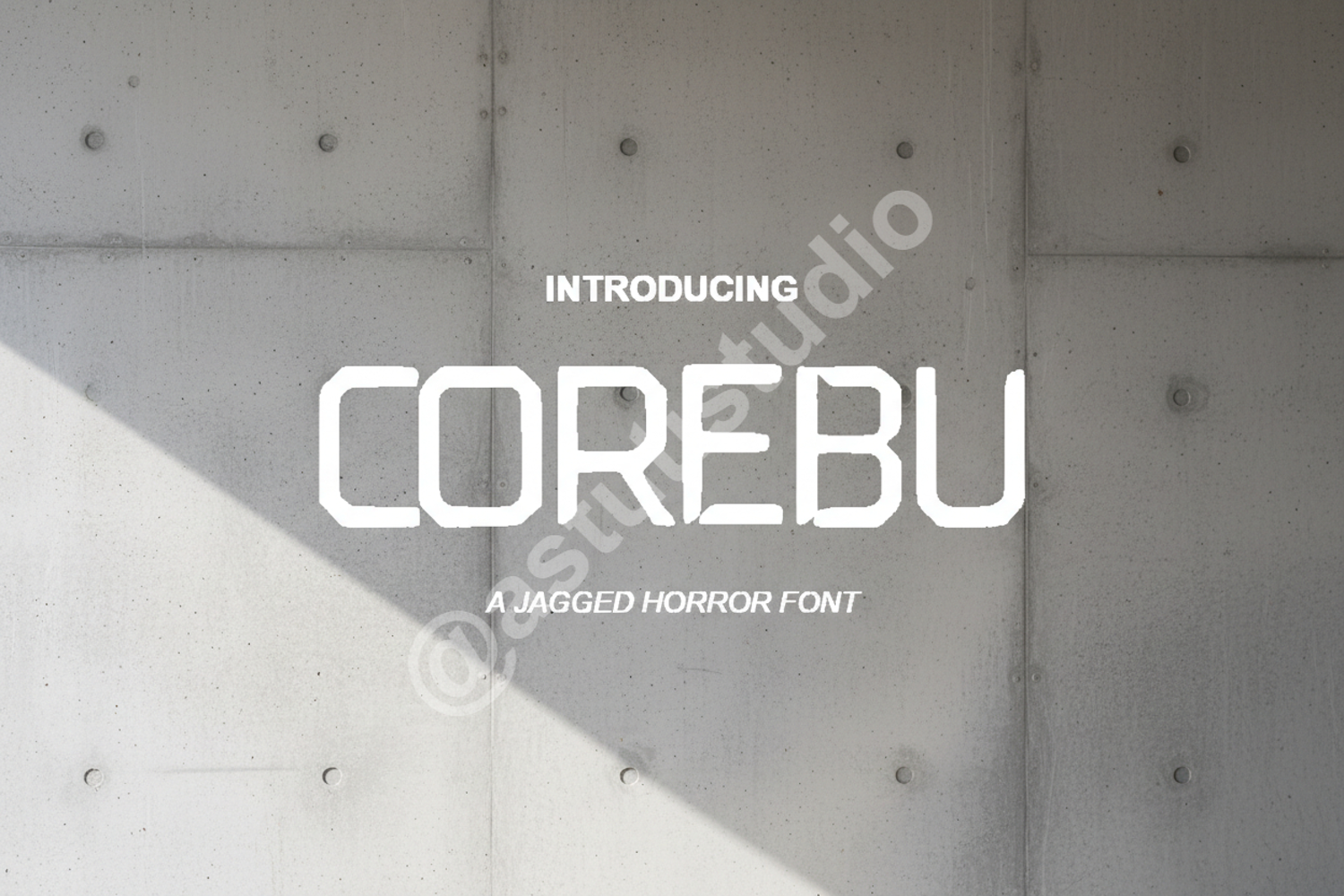
Corebu - Modern Geometric Sans Serif Typeface
Corebu
Corebu is a sophisticated and highly versatile geometric sans-serif font crafted for designers who demand precision and elegance. With its clean lines and balanced proportions, Corebu offers a timeless aesthetic that bridges the gap between contemporary tech and classic minimalism. Whether you are building a brand from scratch or refining an existing project, this font provides the premium quality needed to make a lasting impression.
- Full Uppercase and Lowercase Alphabet
- Numbers and Punctuation
- Extensive Multilingual Support
- Corporate Branding and Identity
- Minimalist Logo Design
- High-end Editorial Layouts
- Website Headers and UI Design
- Professional Stationery and Business Cards
- Modern Advertising and Social Media Graphics